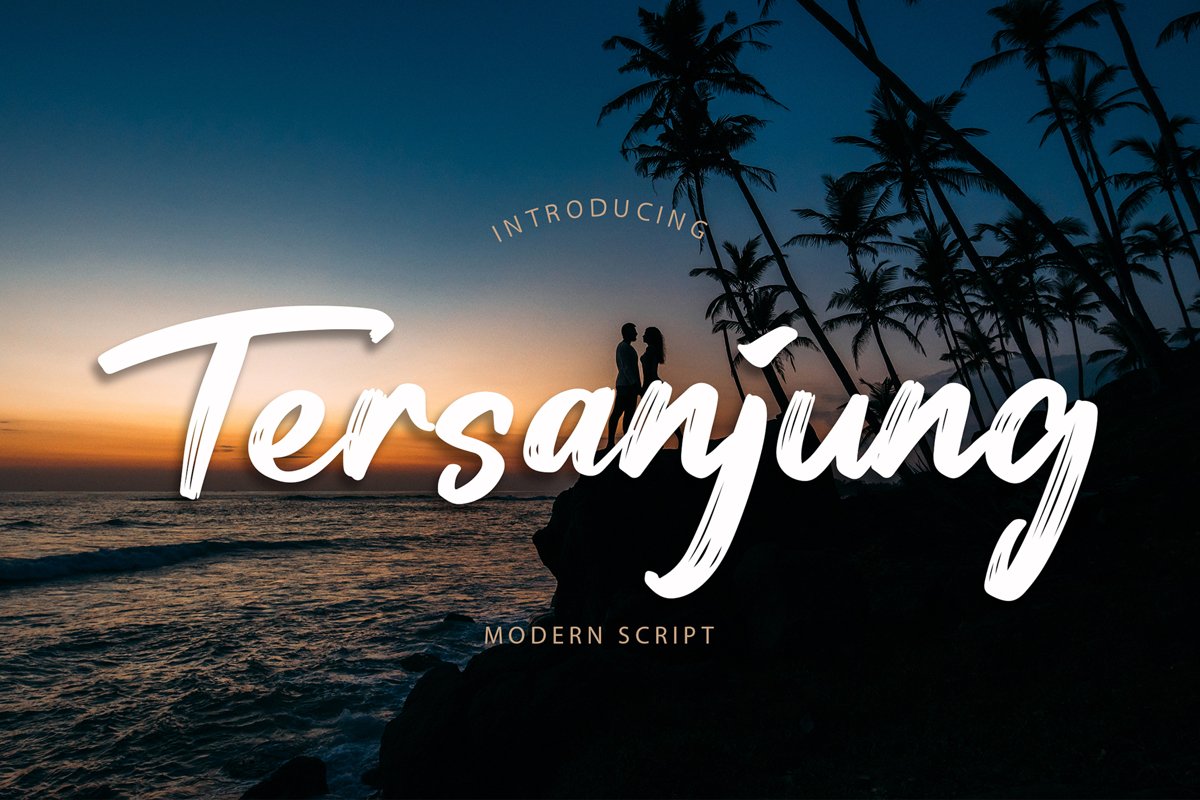
Tersanjung Modern Script Brush Font
Tersanjung
Tersanjung is modern script with brush style. This font perfect for branding projects, logo, tshirt designs, social media posts, advertisements, product packaging, product designs, label, watermark, invitation, stationery and any projectsWhat's Included :